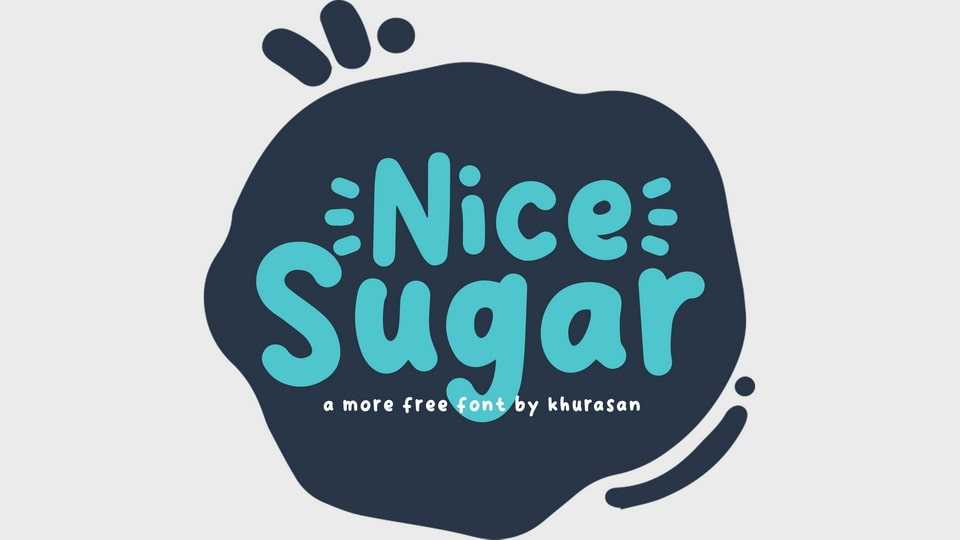
Download Nice Sugar font, a simple and funny handwritten typeface. With its natural look Nice Sugar font is perfect for posters, logos, magazines, book covers, banners, and many more.